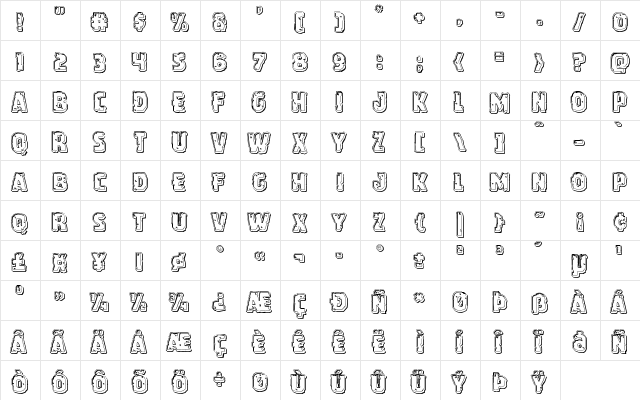
Howlin' Mad Engraved Regular
Design Context for Howlin' Mad Engraved Typeface
Howlin' Mad Engraved brings ornamental detail and strong personality to headlines and identities, where visual impact matters more than quiet functionality.
Font Pairing: Pair with a clean neutral sans-serif for body copy to let Howlin' Mad Engraved's character lead without overwhelming the composition.
Pro Tip: Treat Howlin' Mad Engraved as the centrepiece of your typographic hierarchy. One strong heading set in a decorative face can carry an entire layout.